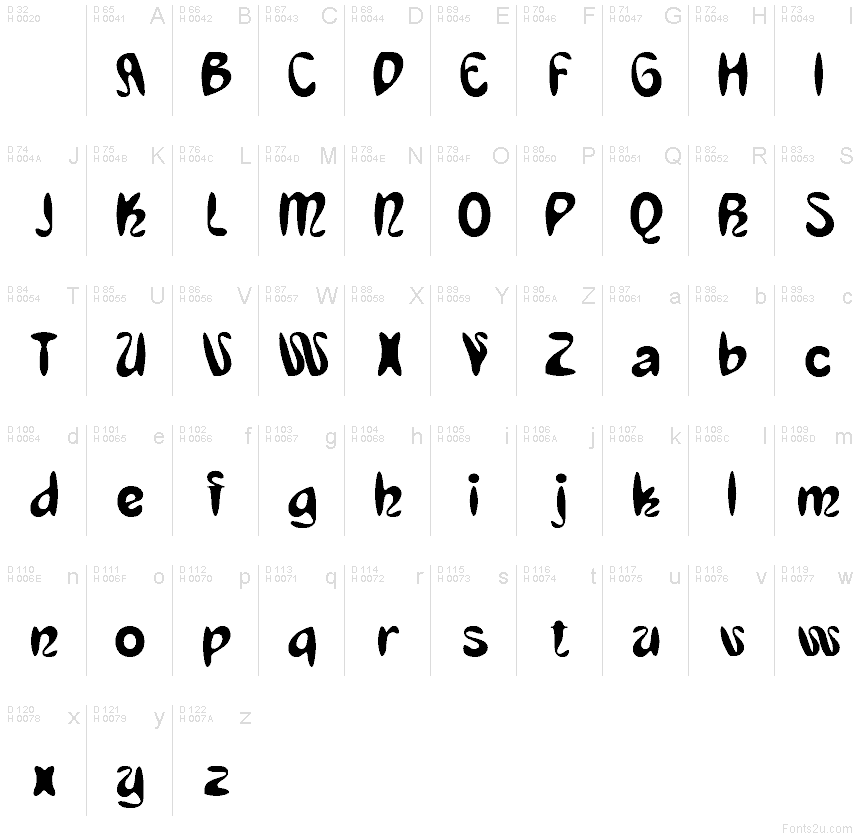
CS Palmer Drawn font by Craft Supply Co. is a free bold distorted font built around a wonderfully inky, hand-drawn wobble. Letters feel puddled and soft at the edges, with off-kilter rhythm that reads playful without losing clarity. The springy baseline and chunky counters create a lively pulse at headline sizes, and as part of the CS Palmer family, it carries a coherent, crafted warmth.
Using CS Palmer Drawn, your titles snap to attention on gig posters, zines, indie brand marks, street-food menus, kids’ packaging, art prints, and social posts. Its bouncy texture adds human charm while the heft keeps messages visible from a distance. Set it big with slightly looser tracking to show off the strokes, and pair this free font with a tidy geometric sans for body copy to keep layouts grounded.